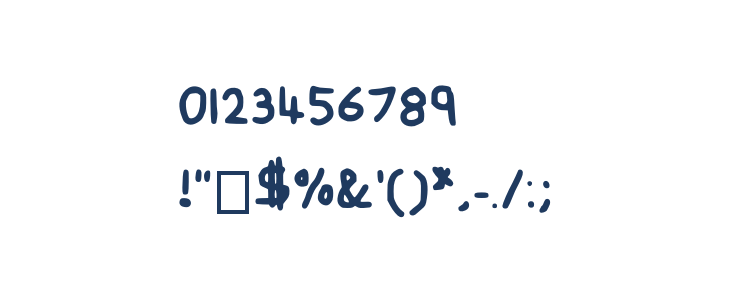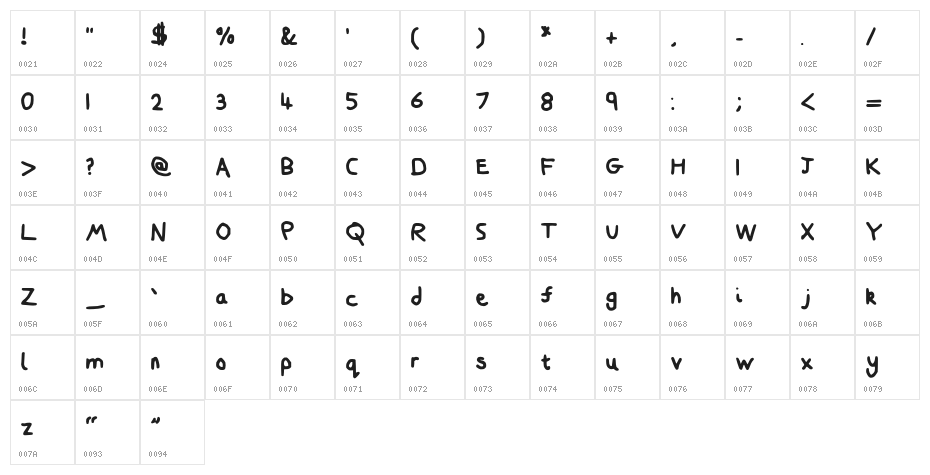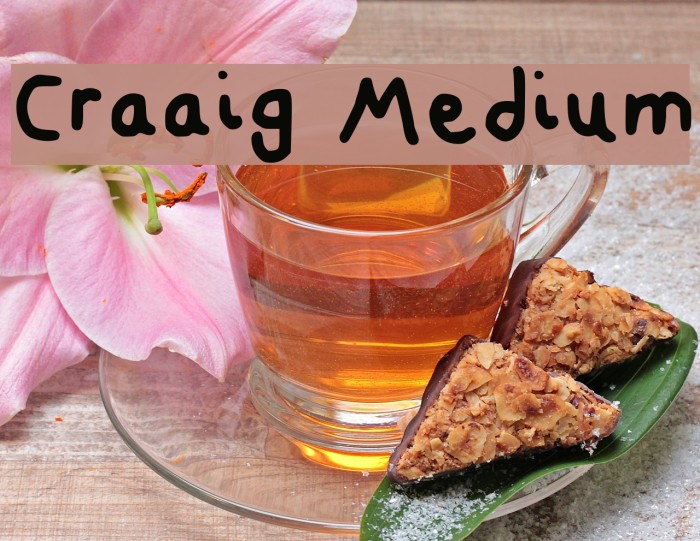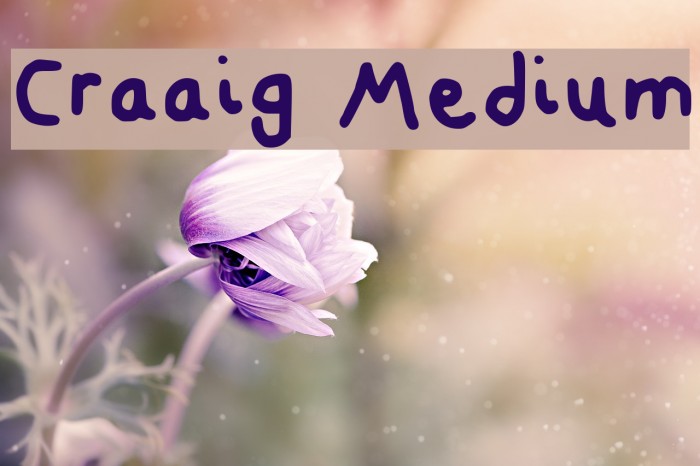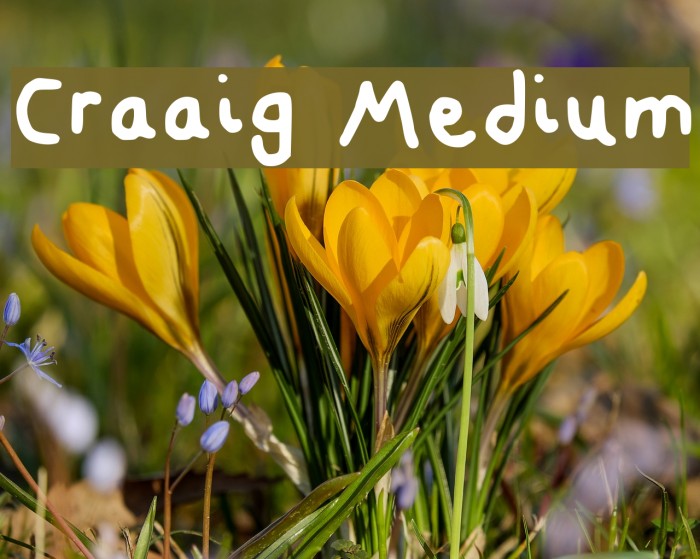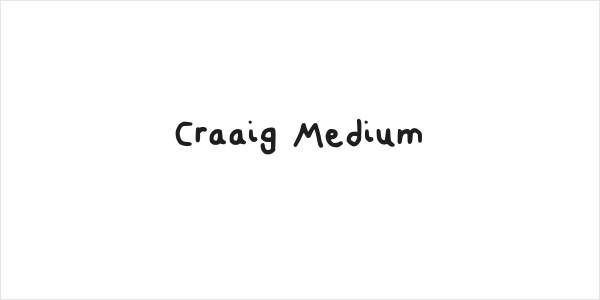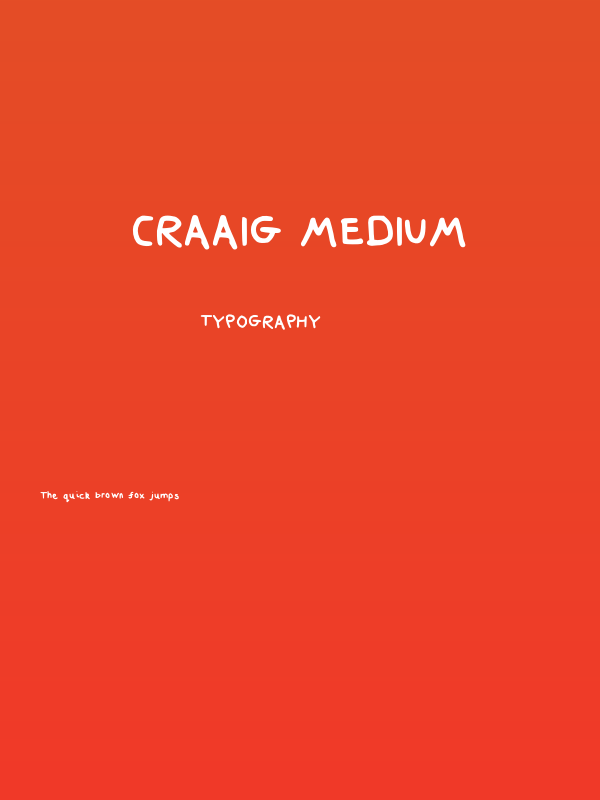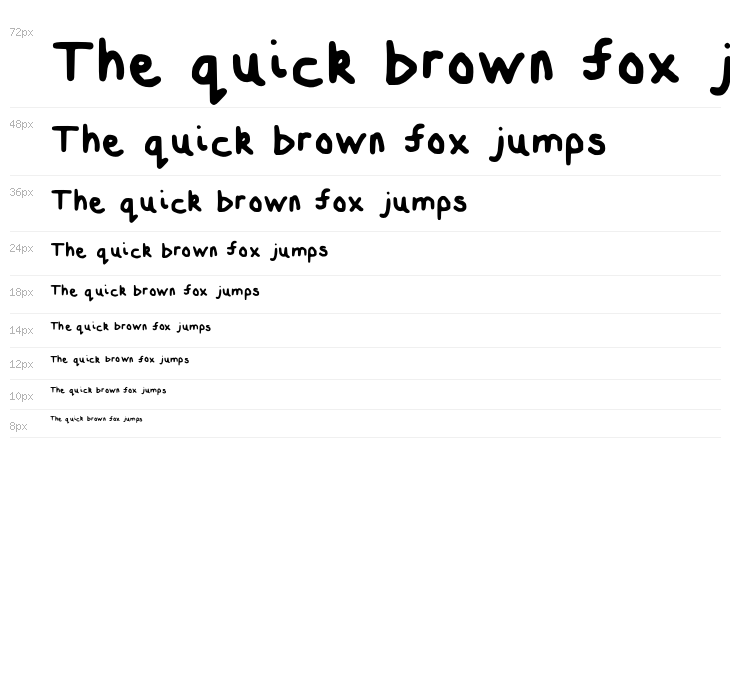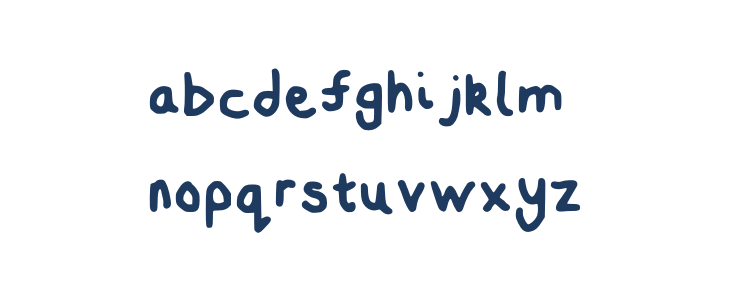
Craaig Medium Font
Craaig Medium Description
This font features a playful and informal handwritten style, characterized by its rounded and slightly irregular letterforms. The strokes are consistent in thickness, giving it a uniform appearance while maintaining a casual, friendly vibe. The uppercase and lowercase letters are well-proportioned, with a slight slant that adds to the dynamic feel of the text. The numerals and special characters are designed to match the overall aesthetic, ensuring a cohesive look across all elements. This font's unique charm makes it suitable for projects that require a personal touch or a relaxed atmosphere.
| Use Case | Headlines, Informal text, Branding |
| Proposed Projects | Ideal for greeting cards, children's books, casual branding, and social media graphics. |